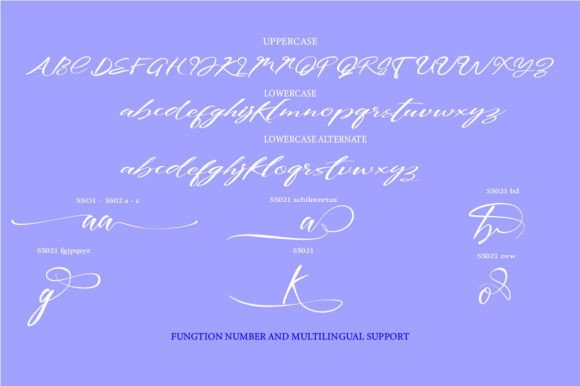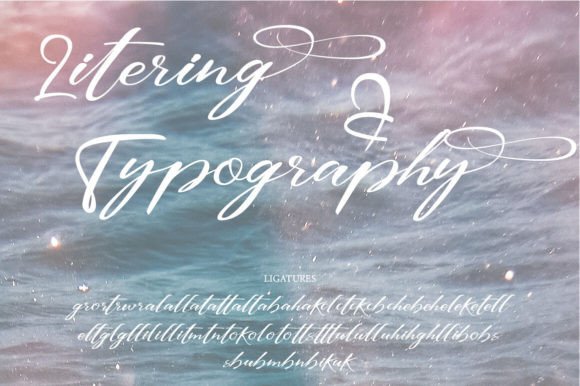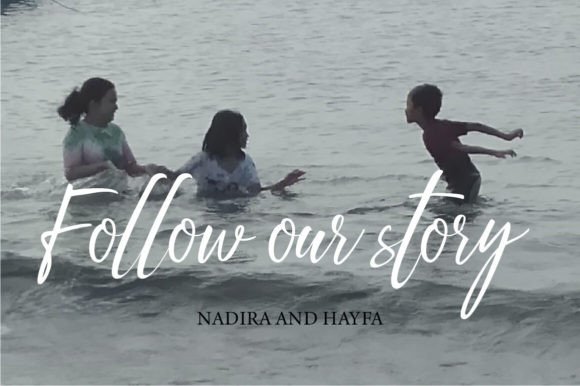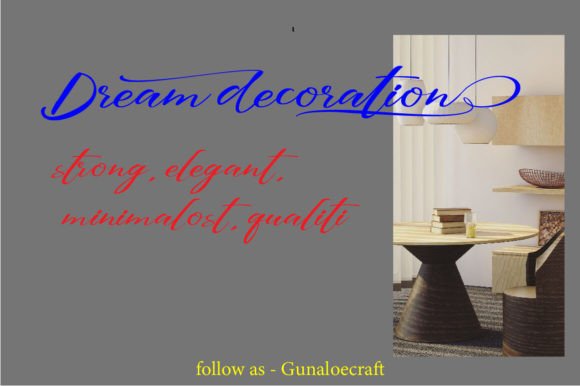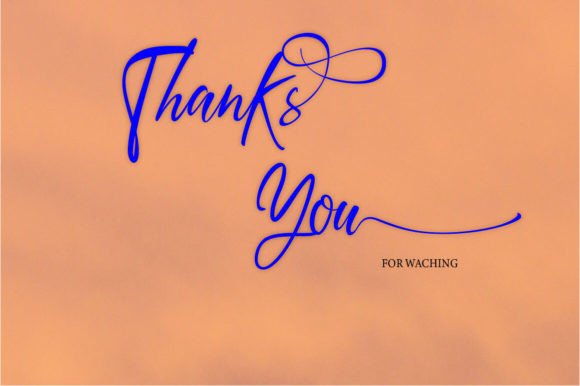
Discover the Timeless Elegance of Agustine Font
There’s nothing quite like the feeling of scribbling down an idea in a beautiful notebook, the pen gliding effortlessly across the page as the words flow from your mind to the paper. It’s a moment of pure creativity, one that can spark a thousand possibilities. For designers, this feeling is what drives them to create something truly special, and that’s exactly what Agustine Font is all about.
Agustine Font is a delicate and elegant handwritten font that’s designed to bring a touch of sophistication to any design project. Its distinct and well-balanced letters make it a masterpiece that’s sure to capture the attention of anyone who sees it. Whether you’re a professional designer or a hobbyist, Agustine Font is the perfect choice for creating spectacular designs that will leave a lasting impression.
With Agustine Font, the possibilities are endless. Its incredibly versatile style makes it perfect for everything from wedding invitations to branding materials, and its elegant look is sure to add a touch of class to any design project.
Agustine Font Key Features
- Font Family: Agustine, Agustine Bold, Agustine Italic, Agustine Bold Italic
- Unique Characteristics: Elegant, modern script font with swashes and flourishes, ideal for invitations, wedding stationery, and luxury branding
- Font Style: Script, Calligraphy
Agustine Font Review
Overall, I found the Agustine font to be a solid choice for designers looking for a classic, elegant feel. ✨ One of its strongest points is its high readability, making it perfect for body text. The font’s x-height is well-balanced, which allows for easy scanning and comprehension.
Another advantage of Agustine is its versatility. ✨ It works well in a variety of contexts, from formal documents to informal blog posts. The font’s subtle flair and rounded edges make it an excellent choice for projects that require a touch of sophistication without being too over-the-top.
Here are some of the key features that make Agustine stand out:
- High readability due to well-balanced x-height
- Versatility in various design contexts
- Sophisticated yet subtle flair
- Works well in print and digital media
However, there are some limitations to consider. ⚠️ For example, Agustine’s design may not be the best choice for projects that require bold, eye-catching typography. Additionally, the font’s rounded edges can sometimes make it difficult to achieve a clear distinction between characters.
Overall, I would recommend Agustine to designers who value readability and elegance in their typography. While it may not be the most exciting font, it is a reliable and versatile choice that can add a touch of sophistication to a wide range of projects.
Tips for Getting the Most Out of Augustine Font
Here are some tips for getting the most out of the Augustine font:
- Use the Augustine font for headings and titles to create a consistent look.
- Pair the Augustine font with other fonts to create a unique and visually appealing design.
- Experiment with different font sizes and colors to create a dynamic and engaging design.
The Augustine font is commonly used for:
- Magazine and newspaper headlines.
- Book covers and book titles
Alternatives to Agustine Font for Designers
Playfair Display is a luxurious and elegant script font perfect for adding sophistication to designs. It is ideal for use in headings, titles, and other text that requires a touch of elegance. When to use: Luxury branding, high-end packaging, and elegant invitations. Comparison to Agustine Font: While Agustine Font has a more modern feel, Playfair Display offers a more traditional and classic look.
Great Vibes is a modern and elegant script font that works well for a variety of designs. It is suitable for use in headings, titles, and other text that requires a touch of sophistication. When to use: Fashion branding, high-end magazines, and elegant websites. Comparison to Agustine Font: Great Vibes has a more modern and sleek feel compared to Agustine Font, making it ideal for contemporary designs.
What is the recommended font size and line height for the Augustine font?
For optimal readability, we recommend using the Augustine font at a minimum size of 12 points, with a line height of at least 1.5 times the font size. This will ensure that the text is clear and easy to read, even at smaller font sizes.